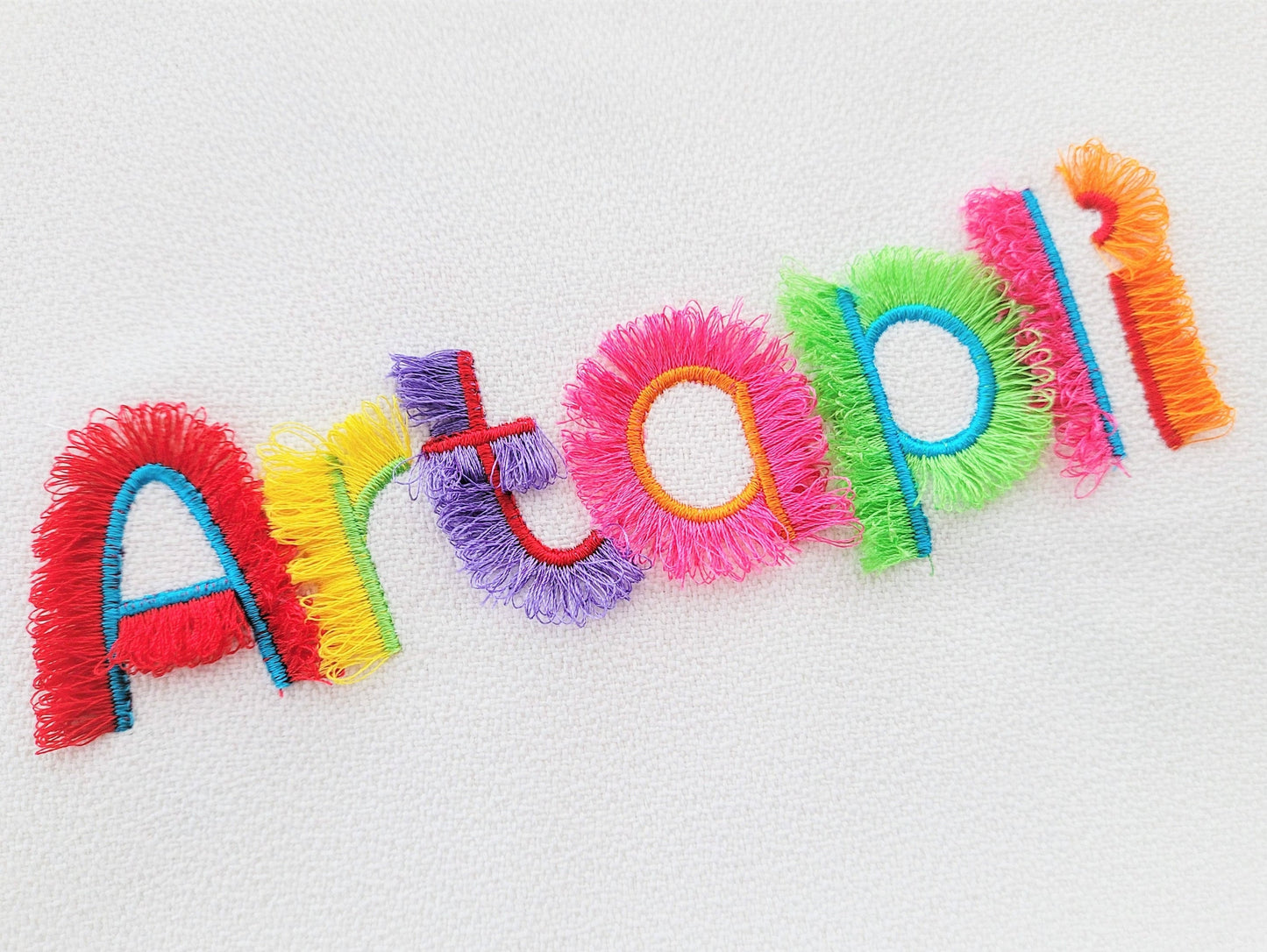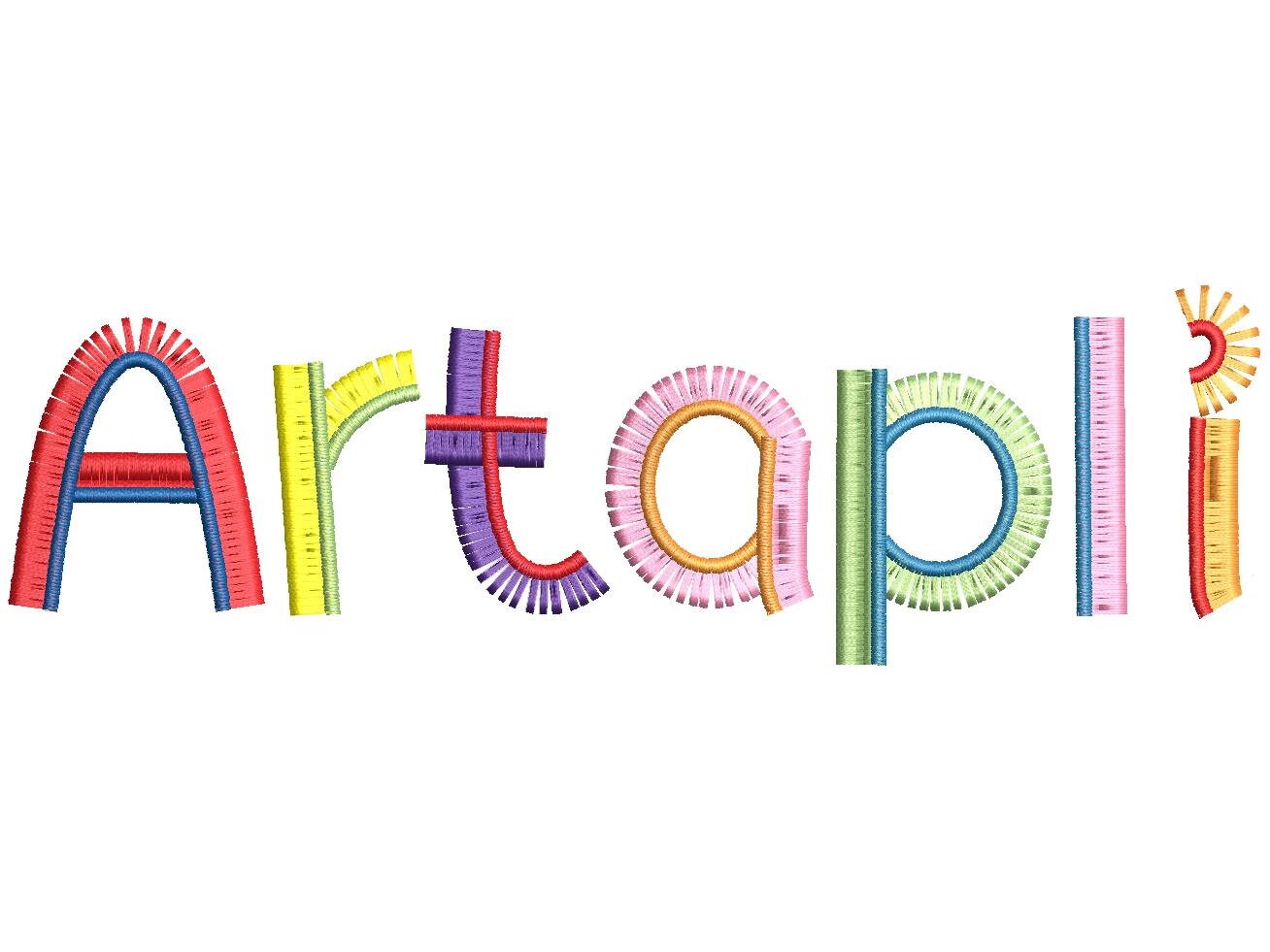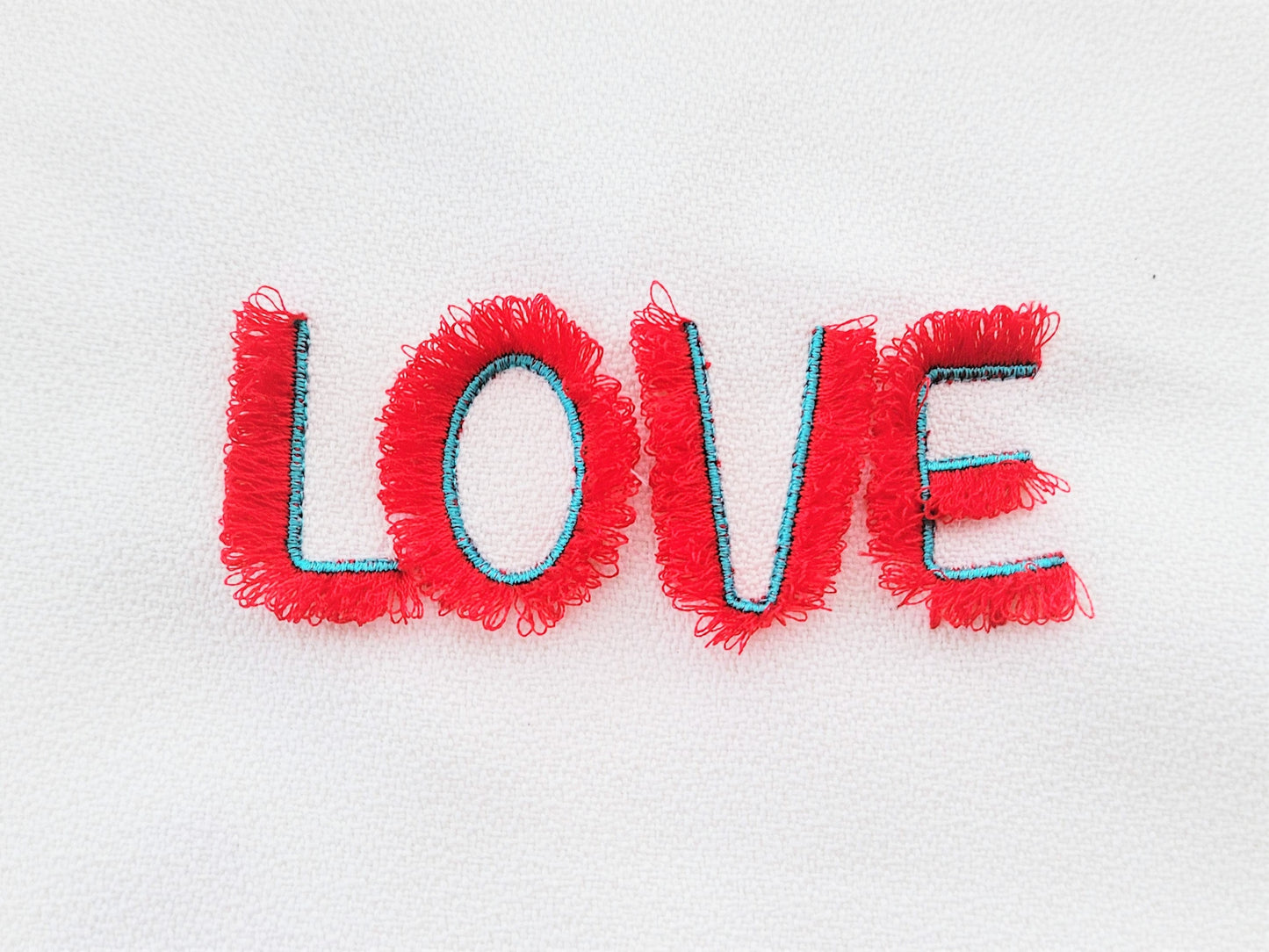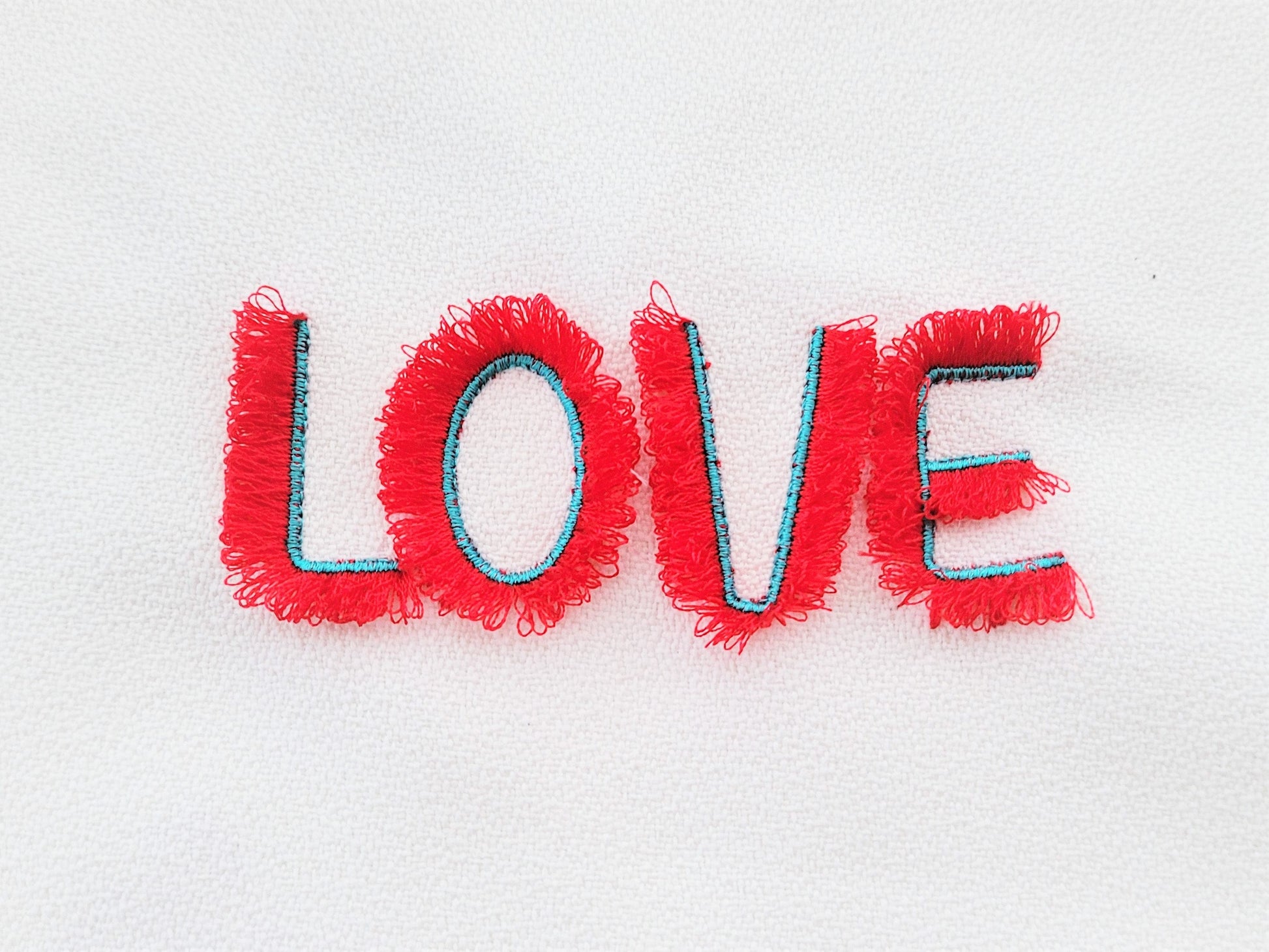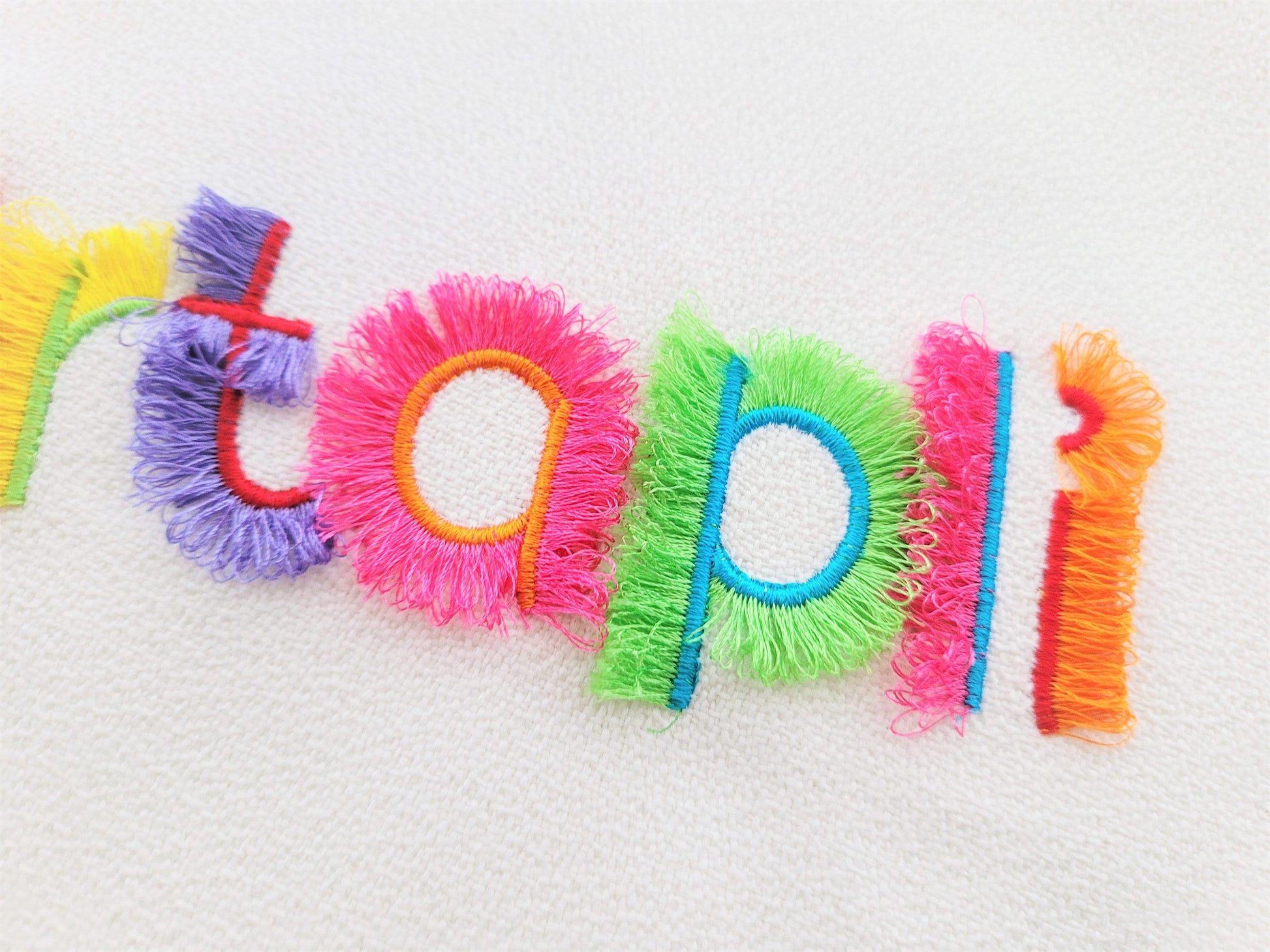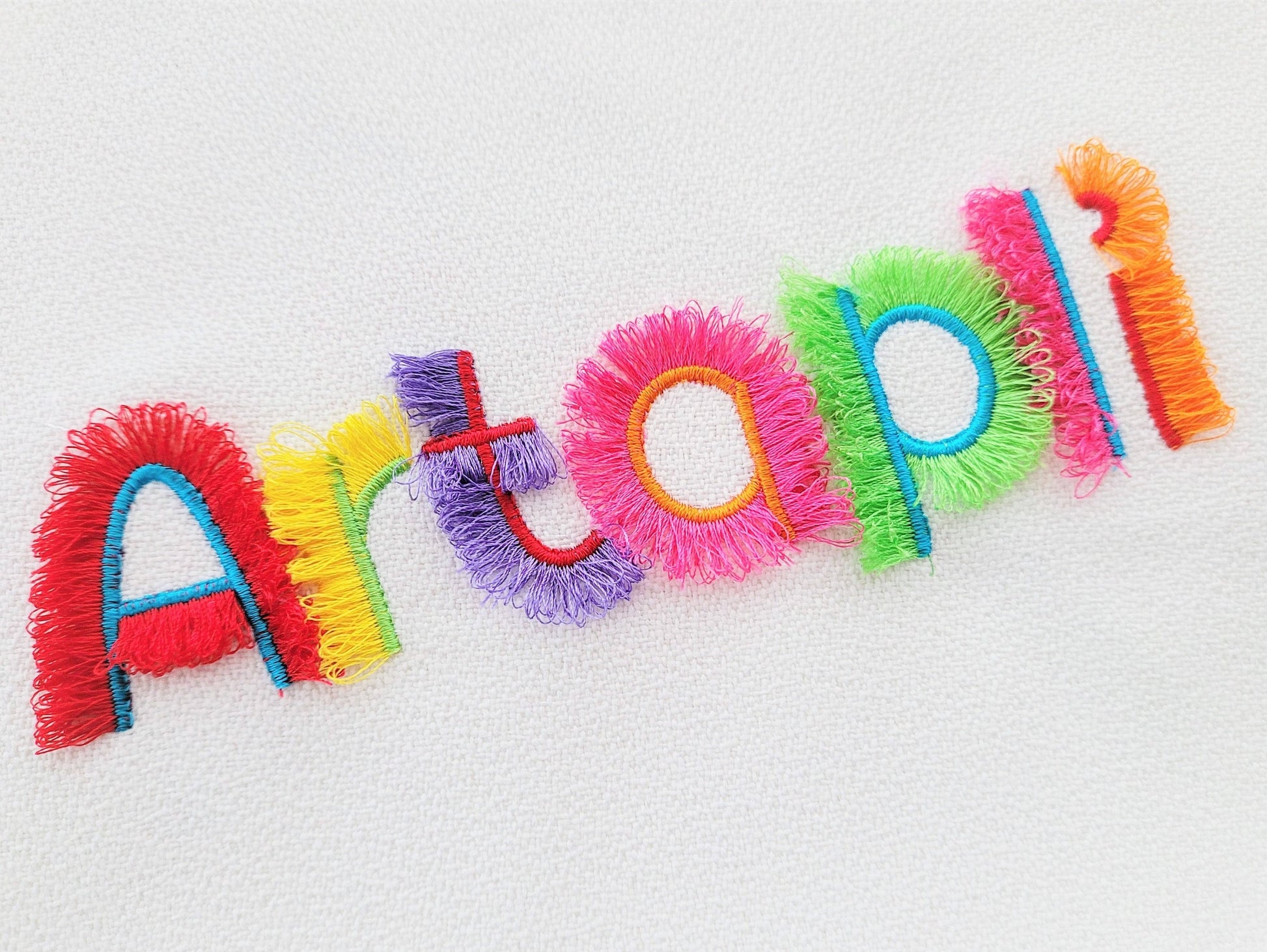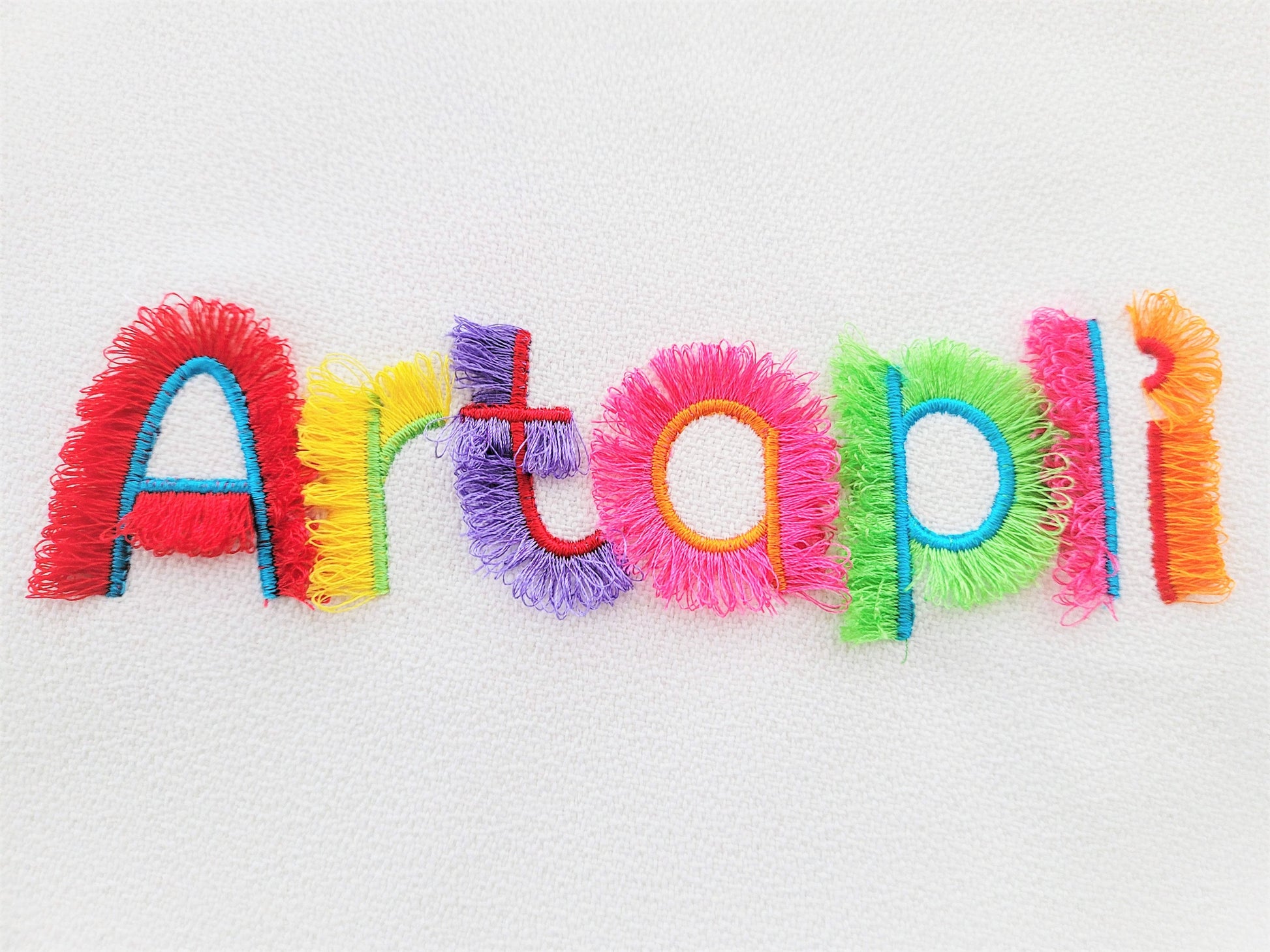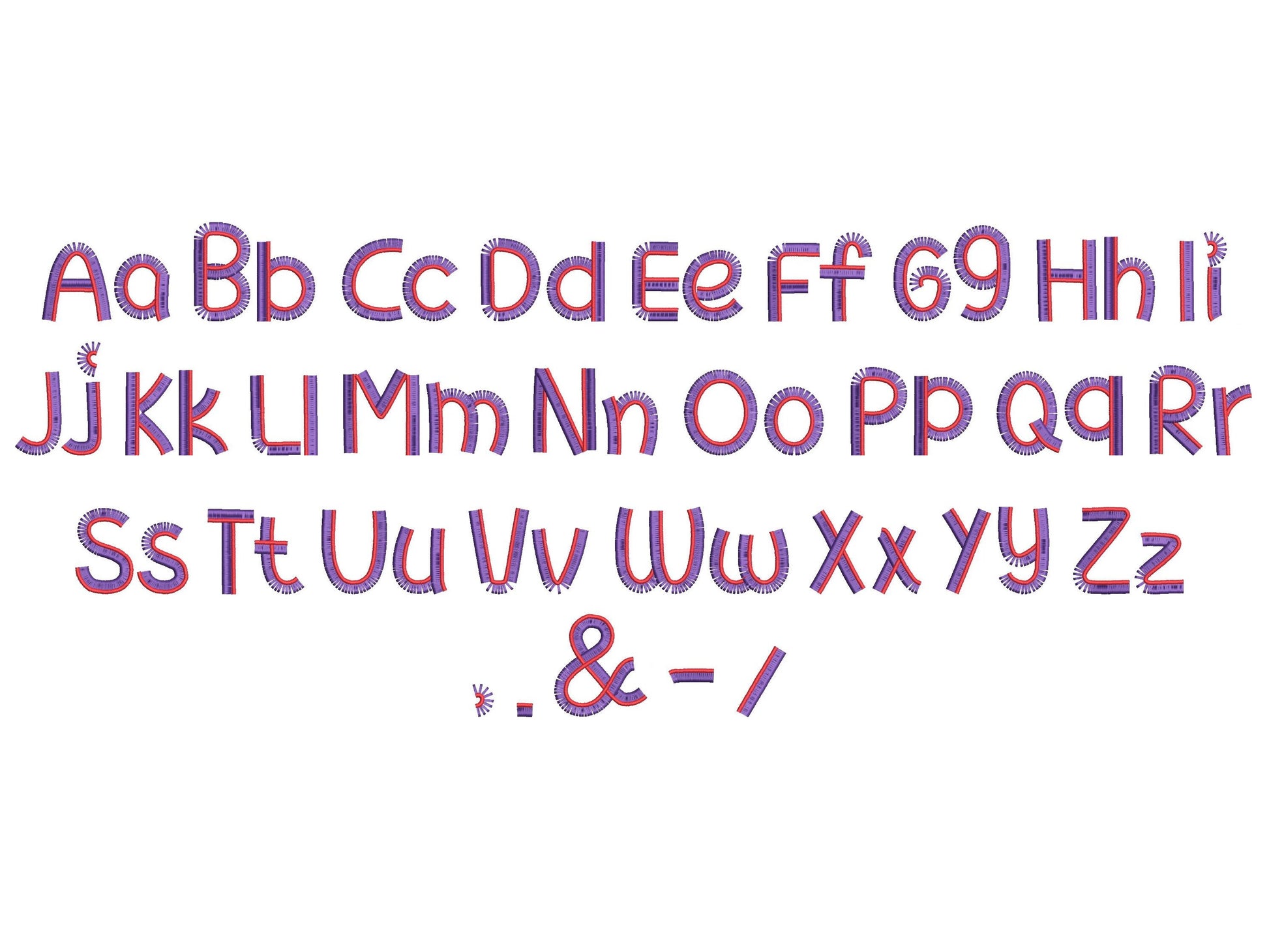
Lovely amazing fringe design and perfect stiching.
Excellent quality, the best embroidery designs!!!
The alphabet fringe letters stitched out perfectly. New to embroidery with my machine but was excited to try these. They have exceeded my expectations! Download was easy. Thank you so very much.
First time embroidering fringe design. Beautiful, I love Artapli designs
Me encanto él diseño y todos los diseños
These designs see out beautifully and look great.
This alphabet pattern is perfect! It sews beautifully and is super easy.
Stitched out beautifully! I highly recommend.
Used it on a blanket It turned out just right Pic is before I cut all the letters
Saubere Stickdatei und tolles Stickbild
C u t e !
Wonderful design! Just what I needed.
Exactly as expected. Stitched out perfectly.
THIS FONT IS SO COOL MY GRANDDAUGHTER Loved it